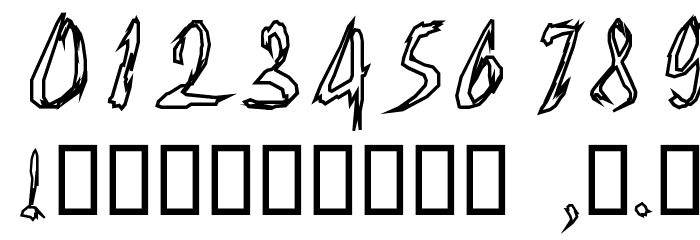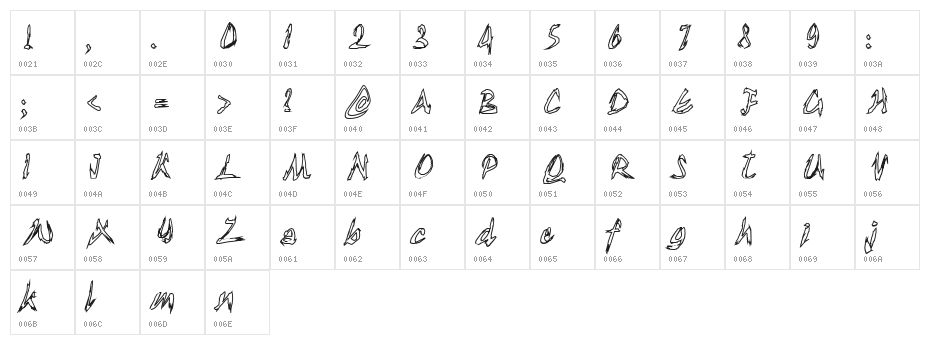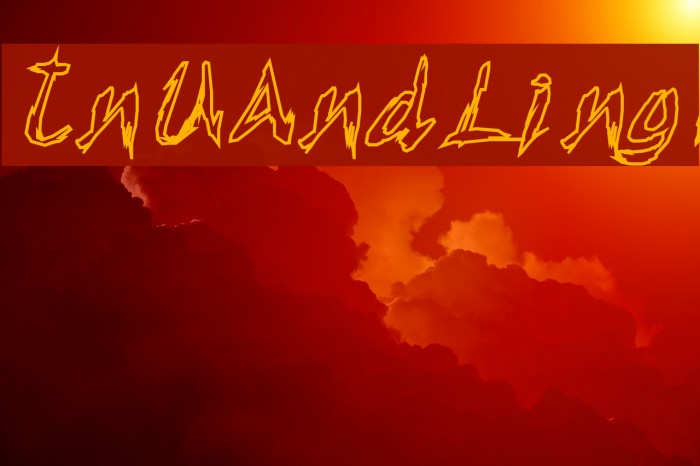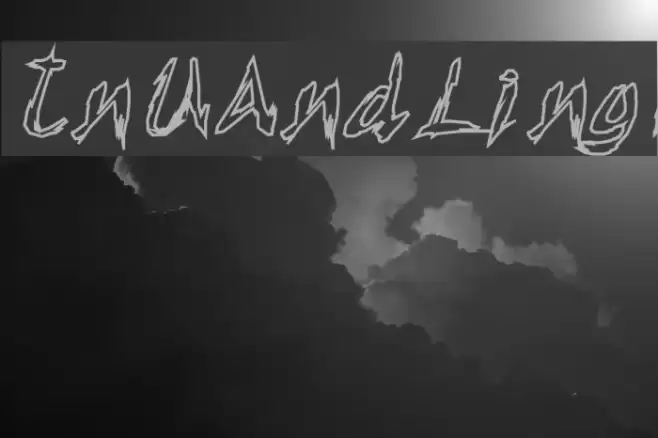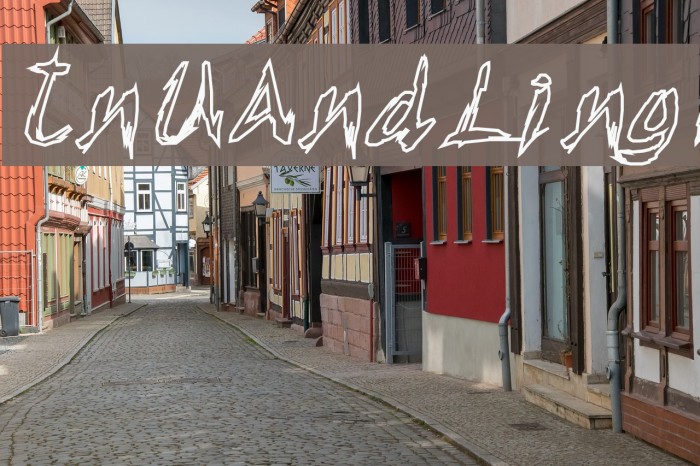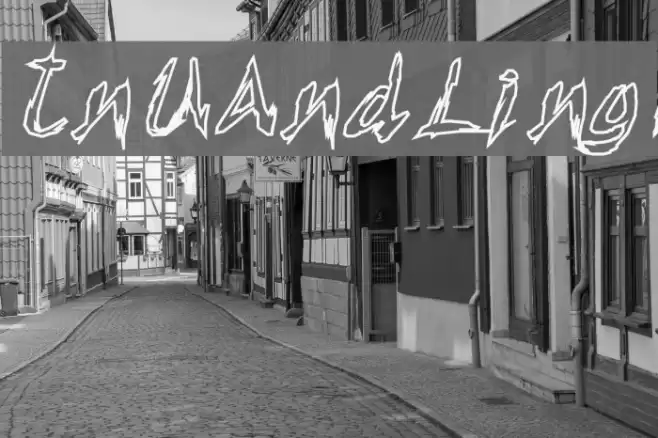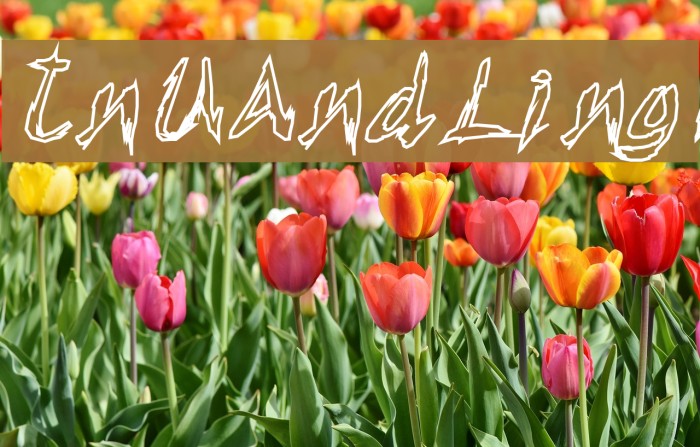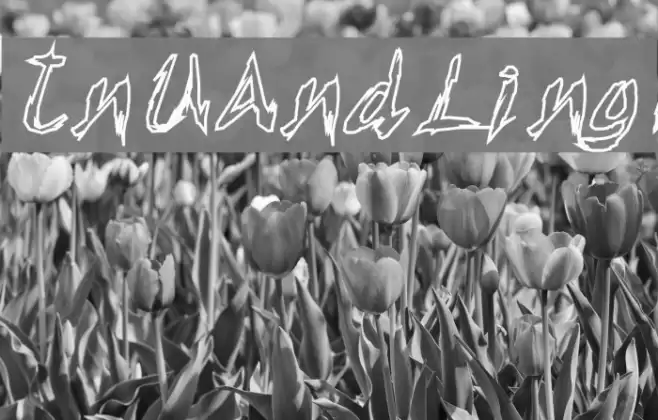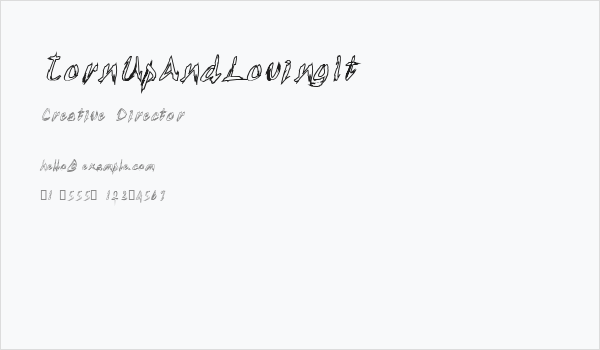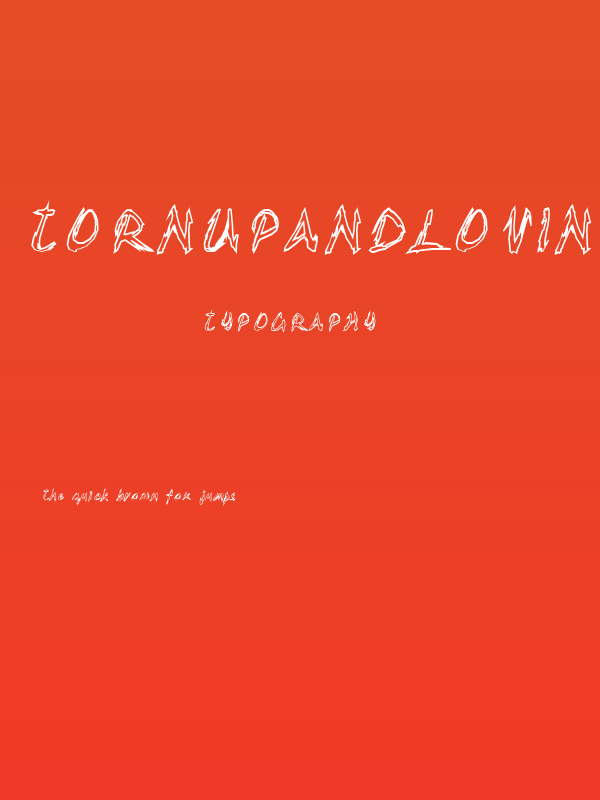
TornUpAndLovingIt Font
TornUpAndLovingIt Description
This font features a jagged, torn appearance that gives it a dynamic and edgy feel. The characters are designed with sharp, irregular edges, resembling torn paper or fabric, which adds a sense of movement and energy. The uppercase and lowercase letters maintain a consistent style, with each character exhibiting unique variations in its torn edges. The numbers and special characters follow the same design principle, ensuring a cohesive look across all elements. This font's distinctive style makes it stand out, offering a bold and unconventional aesthetic.
| Proposed Projects | Ideal for projects that require a bold, unconventional look, such as album covers, posters, or branding for edgy or alternative products. |